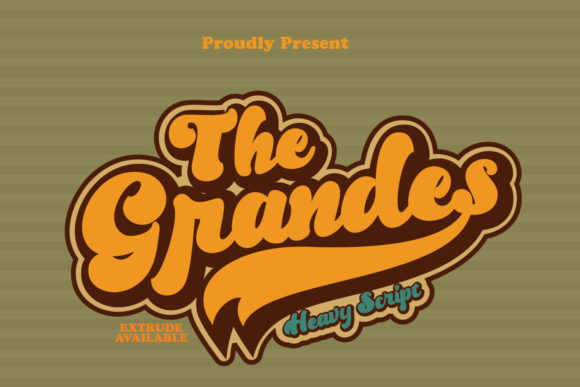
Journey back in time with Grandes, a remarkable script font that conjures the allure and charm of a bygone era. Allow your imagination to roam free as you explore the boundless possibilities of this extraordinary creation, perfectly suited for any visionary seeking to infuse their designs with a touch of nostalgia and timeless elegance.
Picture the vintage charm of hand-painted signs, the allure of classic movie posters, or the sophistication of classic novels, all brought to life with the captivating strokes of Grandes. Each meticulously crafted character exudes a distinct personality, inviting you to blend the old with the new, the classic with the contemporary.
Immerse yourself in the versatility of Grandes, a font designed to transcend boundaries and elevate your creative pursuits. Whether you seek to evoke the spirit of a bygone era in your branding, add a touch of whimsy to your invitations, or create captivating social media posts that resonate with your audience, Grandes is your faithful companion.
Step into a world where creativity knows no bounds, where your imagination takes center stage, and where the possibilities are endless. Unleash the power of Grandes and watch as your designs transform into captivating masterpieces, leaving an indelible mark on the hearts and minds of your audience.